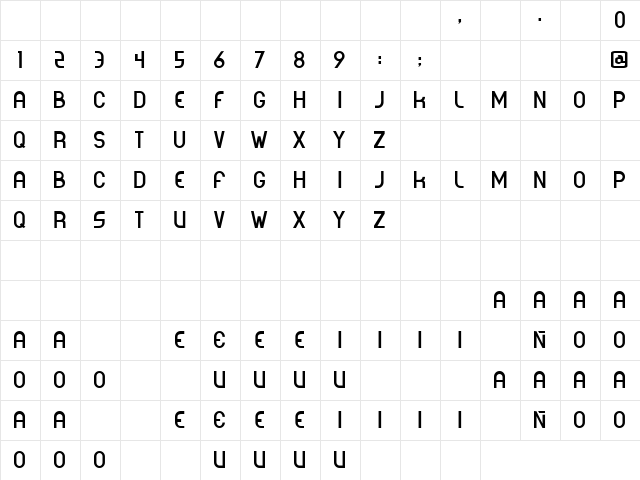
CORPOREA Regular
Design Context for CORPOREA Typeface
CORPOREA takes a measured approach to typography — its balanced proportions and neutral character make it a reliable workhorse for both digital and print work.